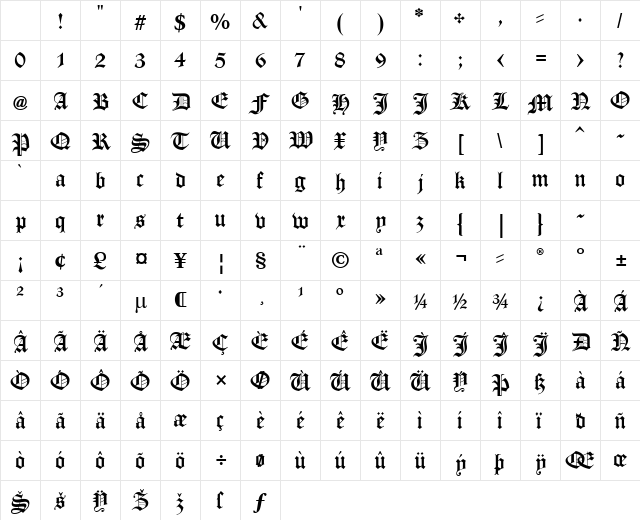
Complete Manuskript Gothisch Regular glyph index. Displaying only characters natively supported by Manuskript Gothisch Regular font.
Manuskript Gothisch is a composed and adaptable typeface that performs quietly and consistently across a wide range of design contexts.